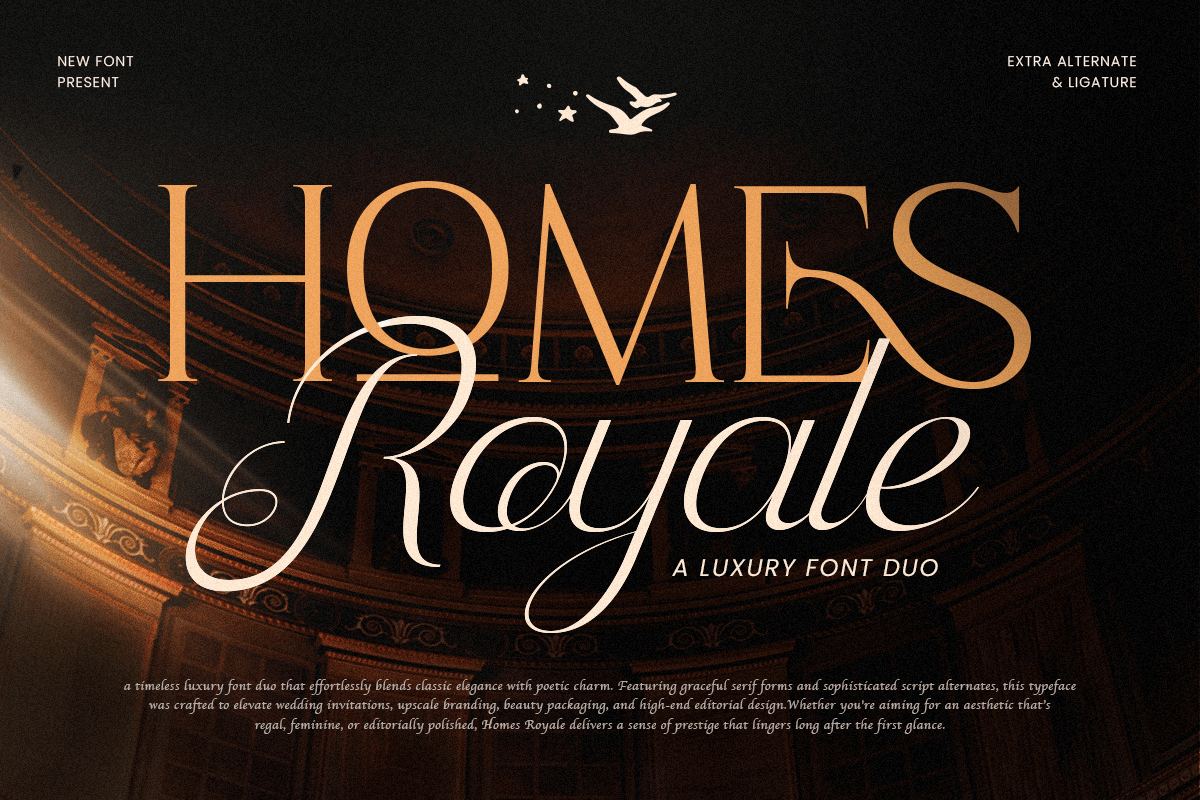
Homes Royale
-Luxury Font Duo
Homes Royale - Luxury Font Duo
Homes Royale is a luxury font duo that beautifully combines elegance and versatility. Featuring a refined serif and a graceful script, this pair is designed to bring sophistication and harmony to high-end branding, fashion editorials, and premium product design.
The serif font delivers a timeless, confident presence suitable for logos and headlines, while the script font adds a delicate handwritten touch, perfect for invitations, packaging, and personal branding. Together, they create a seamless balance of modern luxury and classic beauty.
Whether used individually or combined, Homes Royale makes every project feel polished, stylish, and exclusive — ideal for designers who want to express refinement and creativity in one cohesive look.
Homes Royale – Luxury Font Duo Features
• Two complementary fonts (Serif & Script) for elegant pairing
• Perfect for branding, invitations, packaging, and editorials
• Luxurious, timeless style with refined typographic balance
• Ideal for fashion, lifestyle, and creative industries
• OpenType features for professional design flexibility
Redefine elegance with Homes Royale – the ultimate luxury font duo for sophisticated branding, fashion, and editorial design. ✨